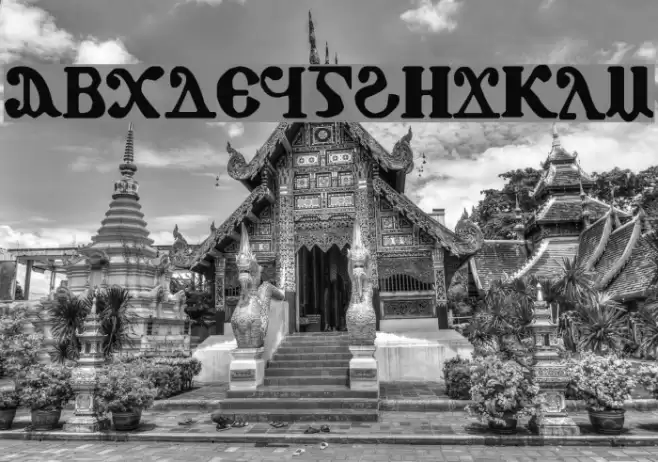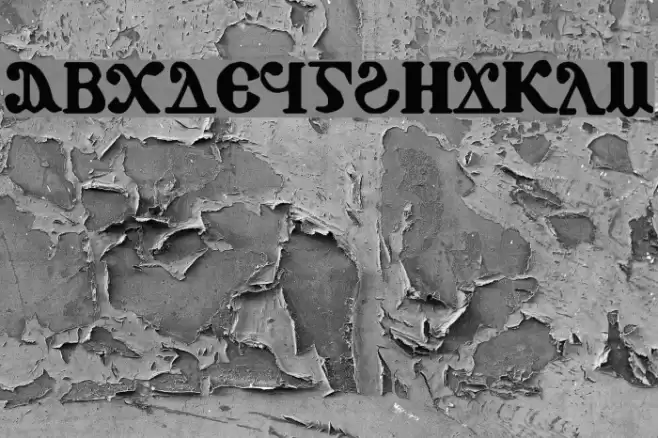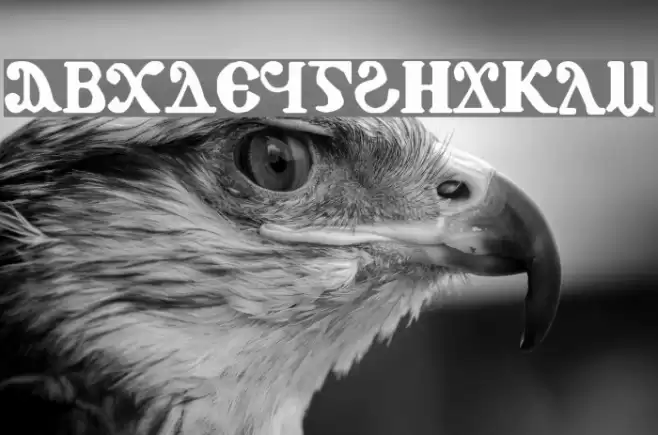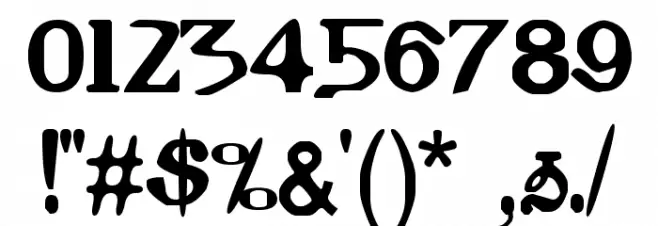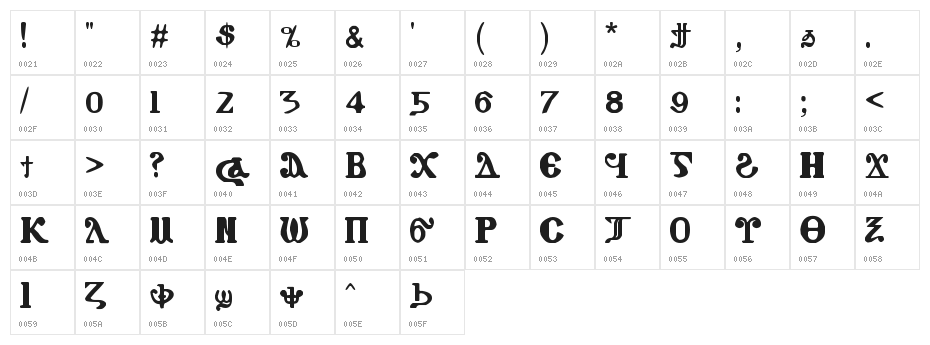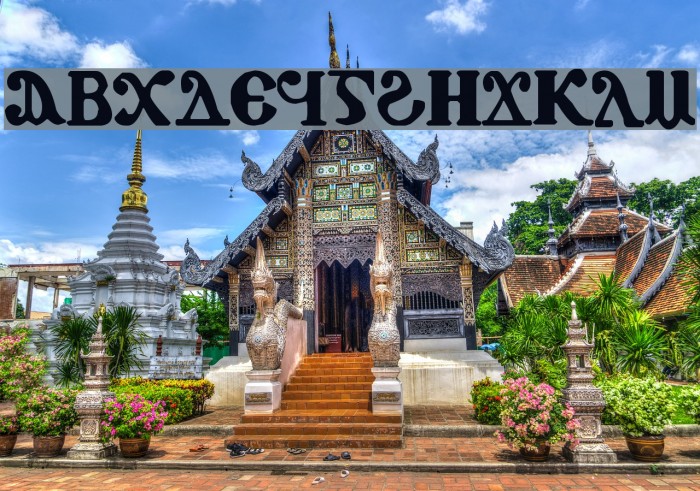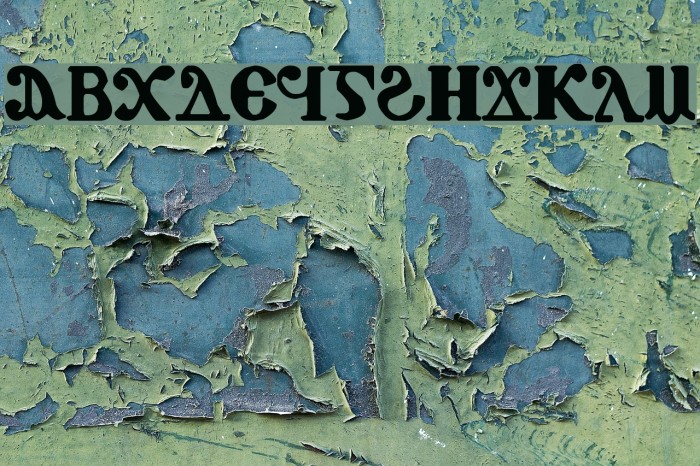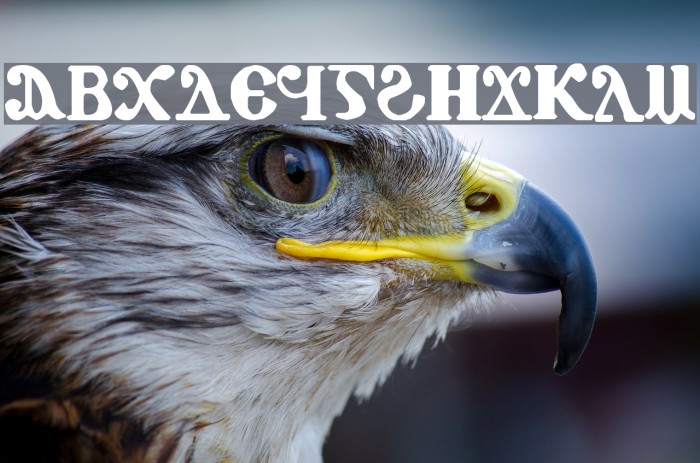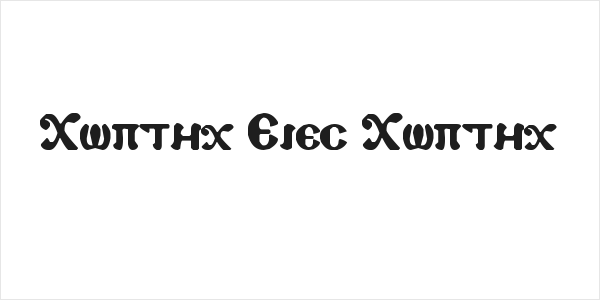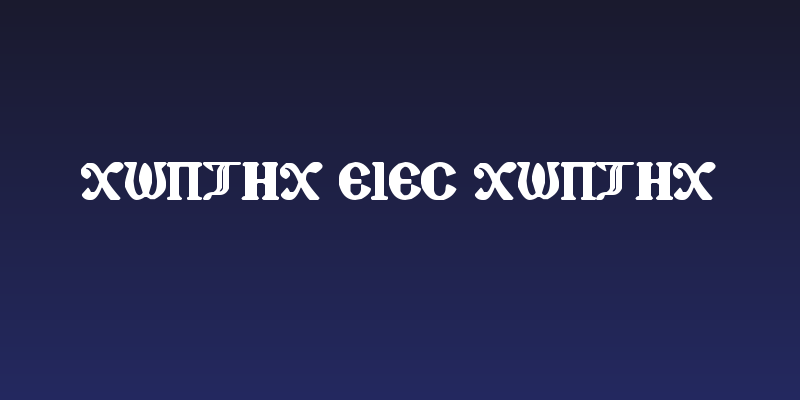
Coptic Eyes Coptic Font
Coptic Eyes Coptic Description
This font features a unique and bold design with a distinct decorative style. The characters are crafted with intricate details, showcasing a blend of traditional and modern elements. The uppercase and lowercase letters maintain a consistent aesthetic, with sharp angles and rounded edges that create a visually striking appearance. The numbers and special characters are equally stylized, complementing the overall design. This font's strong presence makes it ideal for projects that require a standout typeface.
A bold and decorative font with intricate details and a modern twist from Gothic fonts.
- Proposed Projects: Ideal for branding, poster design, album covers, and any project that requires a bold and artistic typeface.